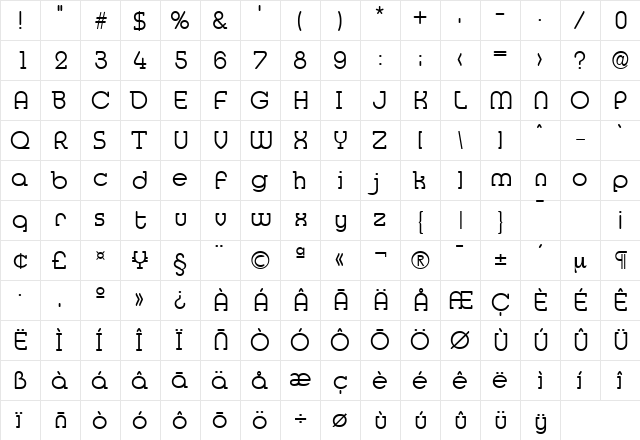
Media-Serial-Light Regular
Design Context for Media-Serial-Light Typeface
Media-Serial-Light offers clean, dependable letterforms without strong stylistic allegiance, making it a practical choice for designers who need flexibility. The delicate stroke weight brings airiness and refinement to layouts.